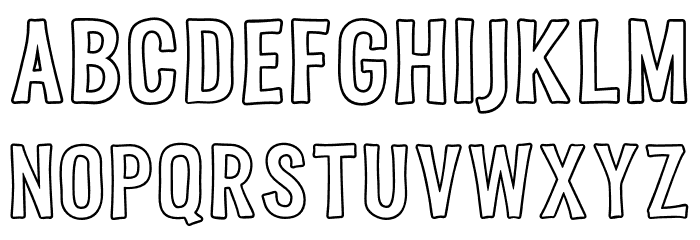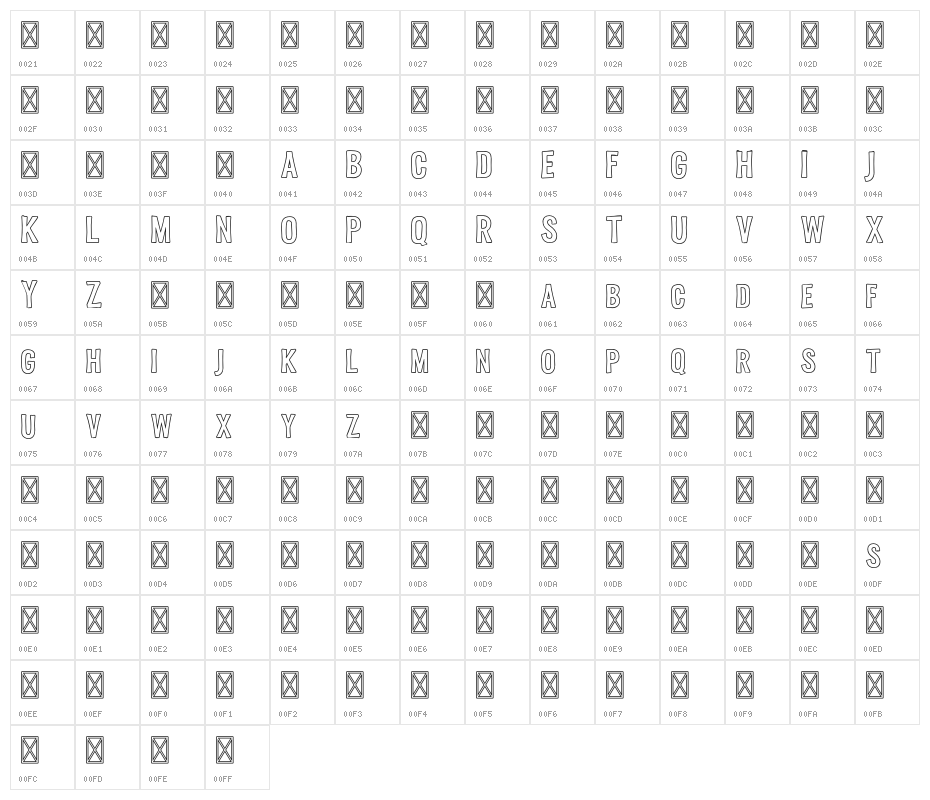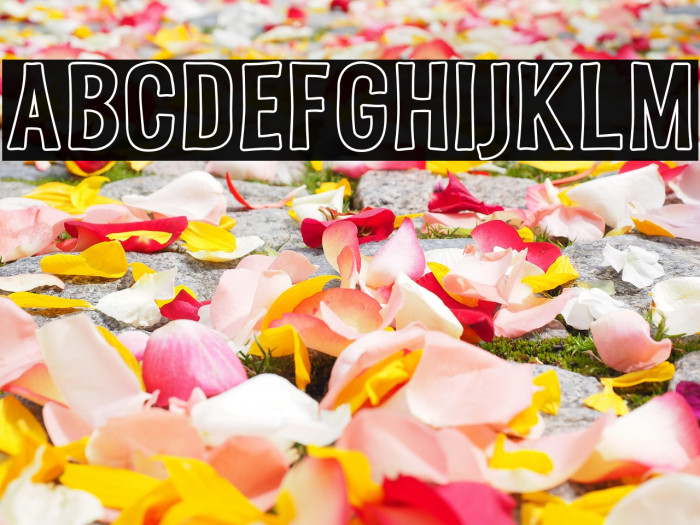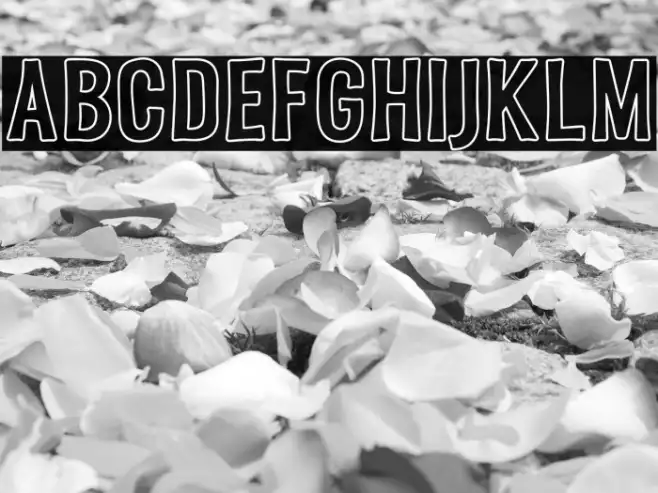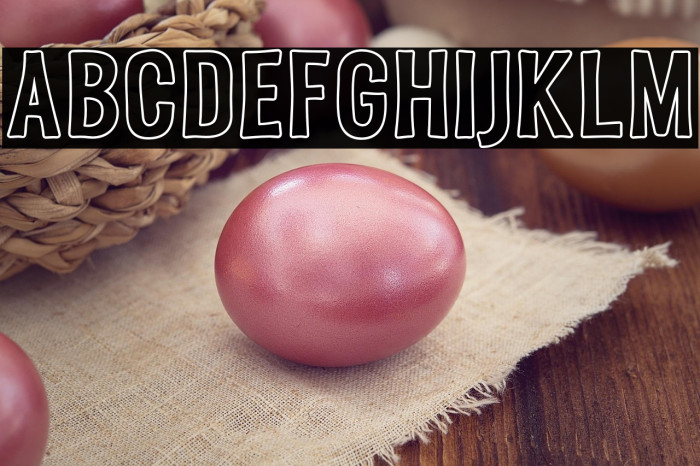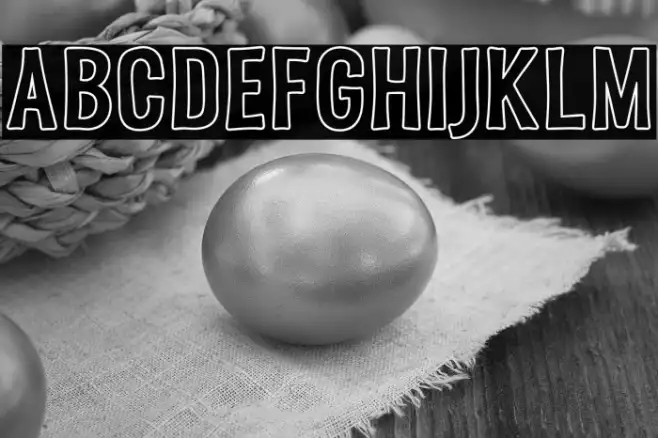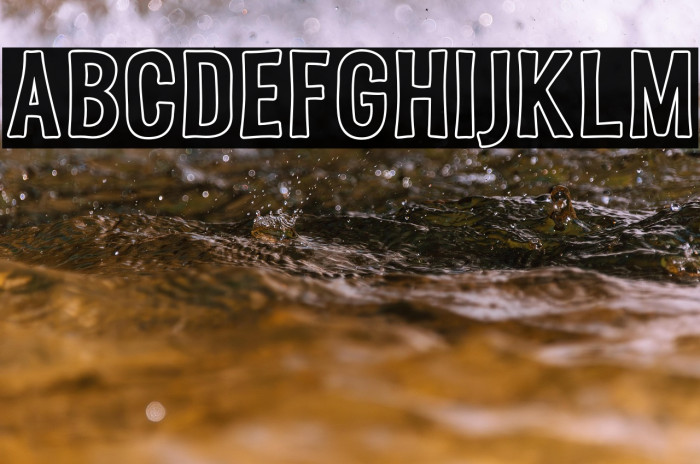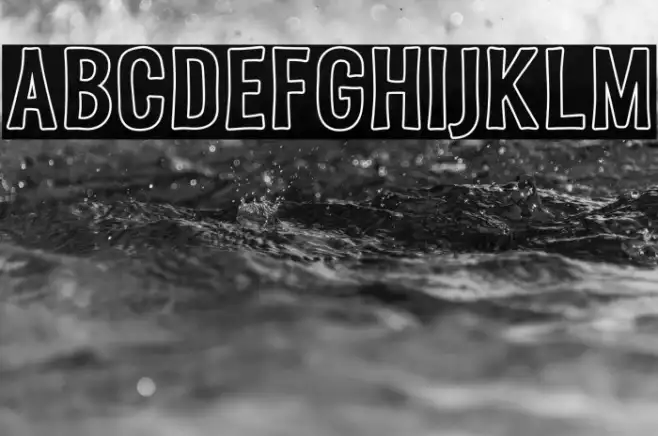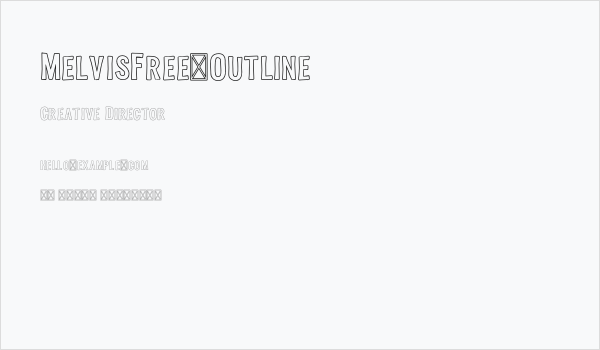
MelvisFree-Outline Font
This font features a bold, outlined style that gives it a distinctive and eye-catching appearance. The uppercase letters are designed with a uniform thickness, creating a consistent and cohesive look across the alphabet. The outline effect adds a layer of depth, making the characters stand out prominently. This style is particularly effective for creating a strong visual impact, suitable for various design applications where attention is key. The font's geometric structure and clean lines contribute to its modern and versatile aesthetic, making it suitable for both digital and print media.
A bold, outlined font with a modern and eye-catching design.
- Font: MelvisFree-Outline
- Proposed Projects: Ideal for posters, headlines, logos, and branding materials where a strong visual impact is desired.